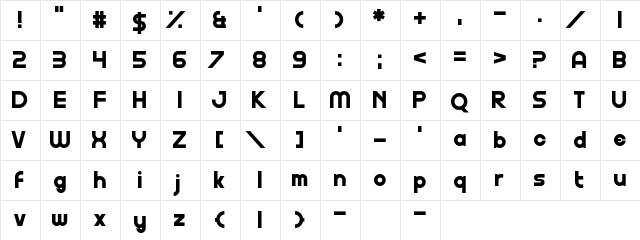
Gofuyo Regular
Design Context for Gofuyo Typeface
Gofuyo takes a measured approach to typography — its balanced proportions and neutral character make it a reliable workhorse for both digital and print work.